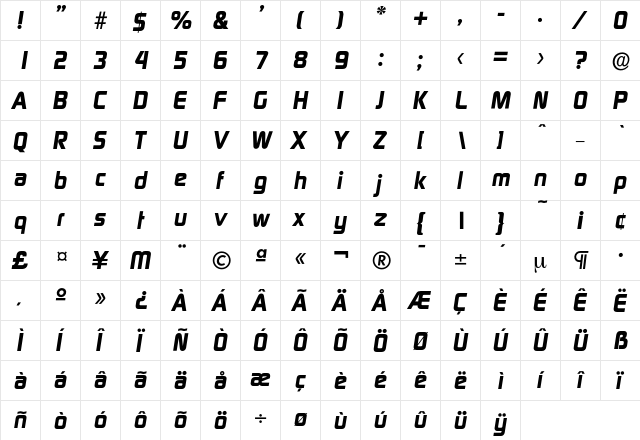
Digital-BoldIta Regular
Design Context for Digital-BoldIta Typeface
Digital-BoldIta channels digital-age aesthetics through its sharp, structured letterforms — ideal for brands that want to signal innovation. The heavy weight commands attention and anchors typographic hierarchies.
Pro Tip: Try Digital-BoldIta with generous letter-spacing in UI labels and navigation — the geometric forms benefit from room to breathe.